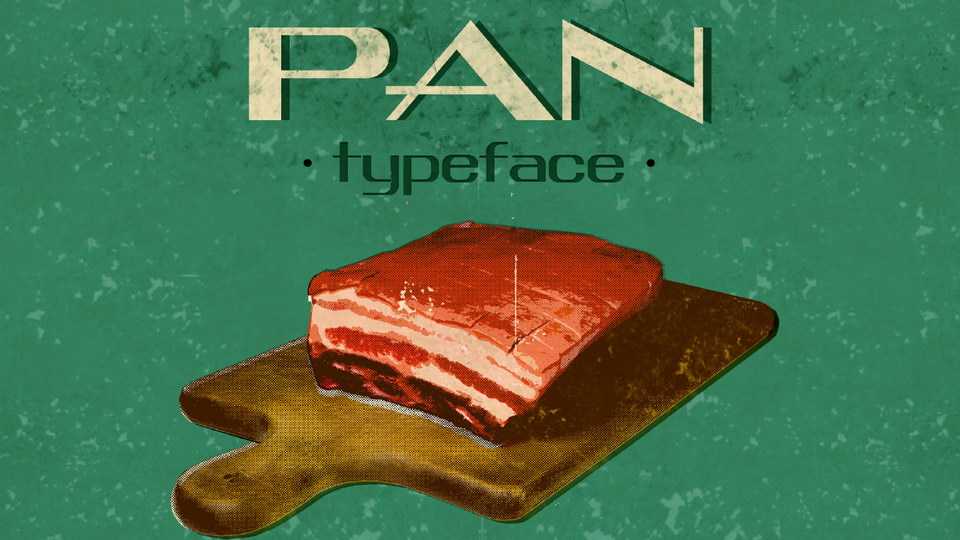
Download Pan typeface, a wide font family in Regular and Bold weights with matched Obliques. Pan font is great for headlines, logos, posters, ads andother creative projects.
Designer: Kasia Pereta